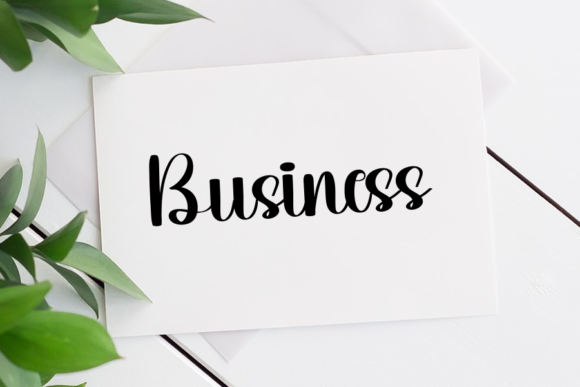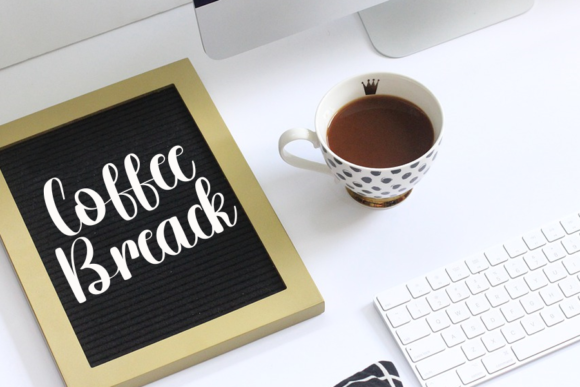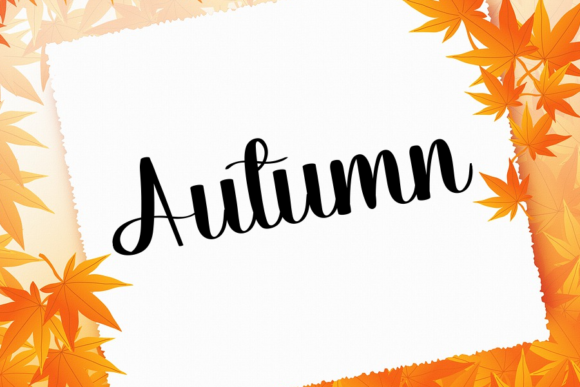
CS Christmas is an enchanting handwritten font. This versatile font has a wide spectrum of applications ranging from greeting cards to headlines and is guaranteed to add a romantic feel to your next project!